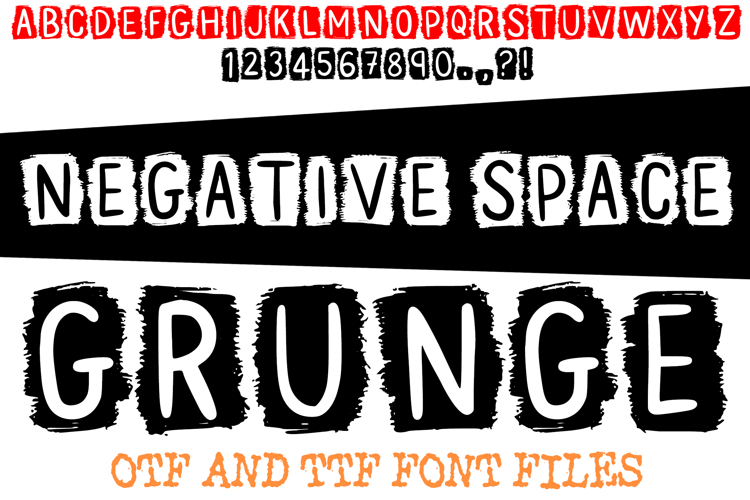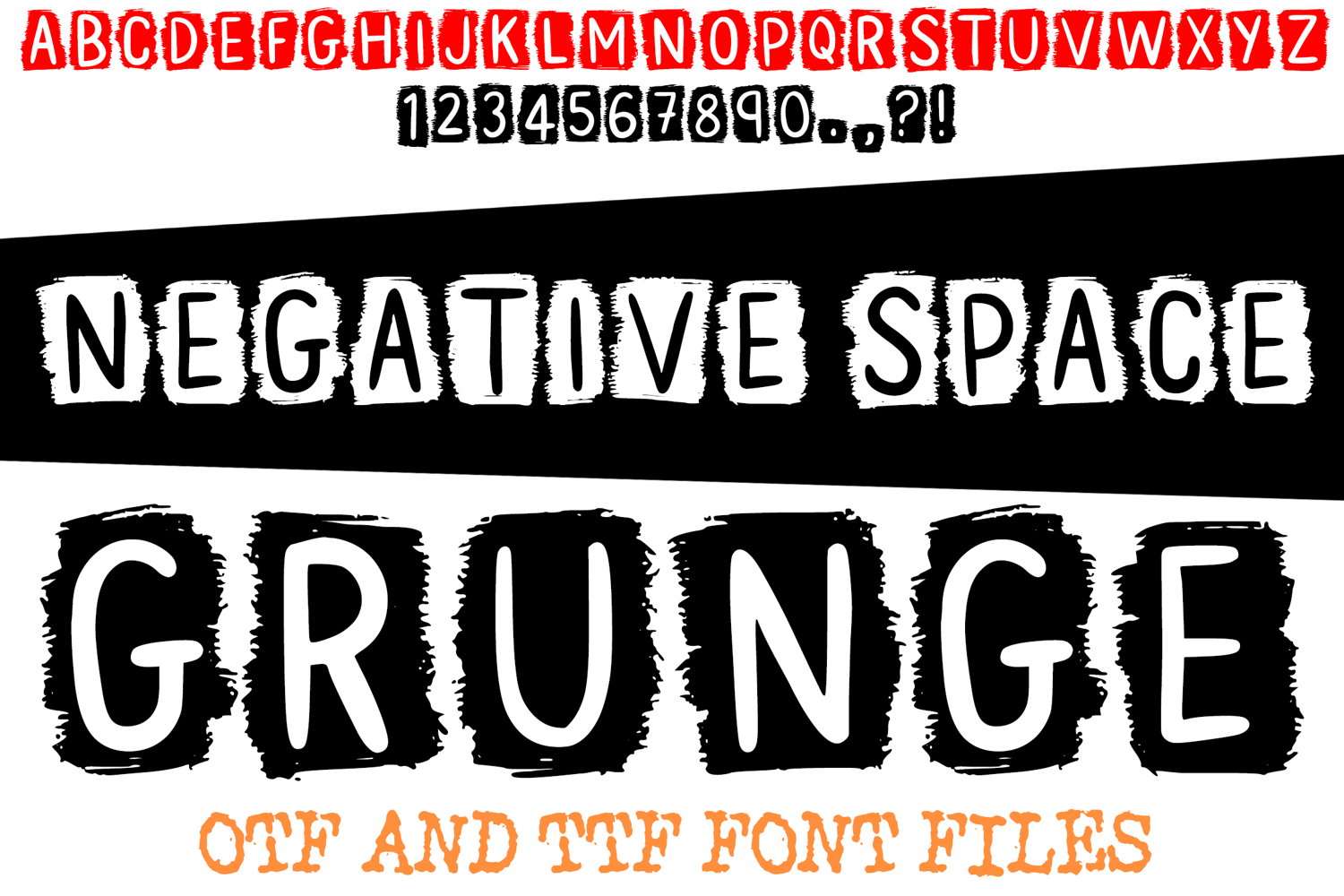
Negative Space Grunge Lettering ABC Font Typeface Alphabet
Unleash striking visual impact with Negative Space Grunge Font! This artistic typeface uses bold, textured shapes to define letters through the absence of form, making them emerge from a raw, grunge-infused background. It's an optical illusion designed for memorable, edgy statements.
Perfect for impactful headlines, edgy logos, grunge posters, album covers, and street art. Its unique use of negative space ensures readability while injecting a raw, artistic character. If you need bold defiance, unique texture, and visual intrigue, Negative Space Grunge Font is your ultimate tool.